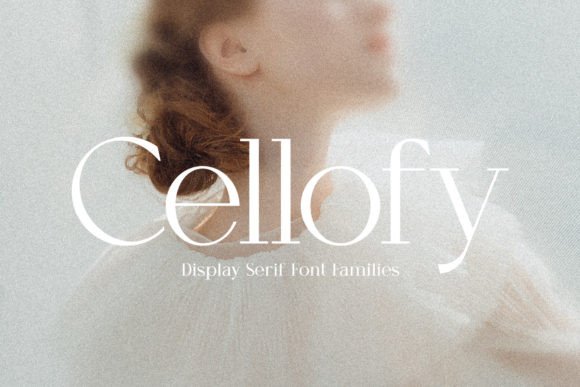
Are you yearning for a font that exudes class and sophistication? Look no further than the Cellofy Font, a masterpiece crafted by OWL KING, renowned for its captivating serif family. With its diverse range of styles, from classic Regular to the expansive Expanded, Cellofy empowers designers with an unparalleled palette of options.
Immerse yourself in a world of creative possibilities, where Cellofy's elegant curves and timeless allure elevate your designs to new heights. Its subtle flourishes and refined character add a touch of distinction, transforming ordinary text into a captivating symphony of letters.
Whether you're crafting a polished CV, designing a stunning website, or seeking inspiration for your latest project, Cellofy Font is your trusted companion. Its versatility knows no bounds, effortlessly adapting to any design vision, from traditional elegance to modern minimalism.
Experience the transformative power of Cellofy Font, where every word becomes a brushstroke, painting an unforgettable impression on your audience. Its timeless beauty transcends trends, ensuring that your designs will continue to captivate for years to come.
Embrace the allure of the Cellofy Font and unleash your creative potential. Its exquisite presence will elevate your designs, leaving a lasting impact on all who encounter them.